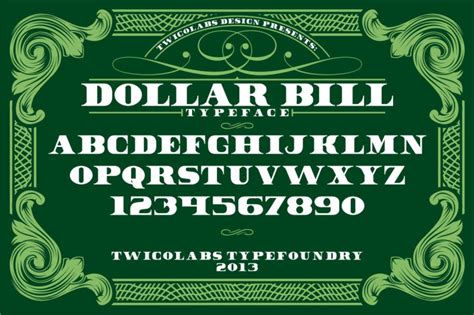
Font Dollar Bill. Web dollar bill is an all caps font that taken / inspired from letters in dollar bill. Add some extra style to your projects with these free dollar bill fonts!.
Web dollar bill is an all caps font that taken / inspired from letters in dollar bill. Add some extra style to your projects with these free dollar bill fonts!.
Web dollar bill is an all caps font that taken / inspired from letters in dollar bill. Web dollar bill is an all caps font that taken / inspired from letters in dollar bill. Add some extra style to your projects with these free dollar bill fonts!.